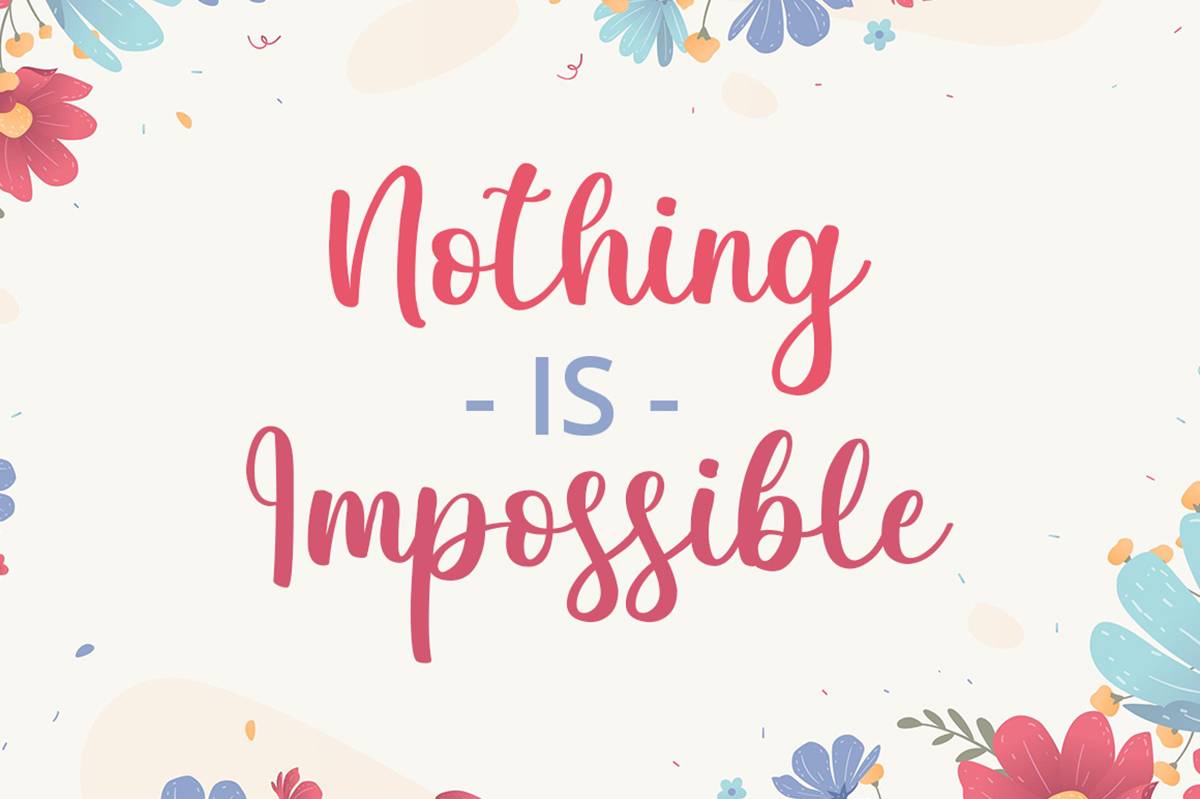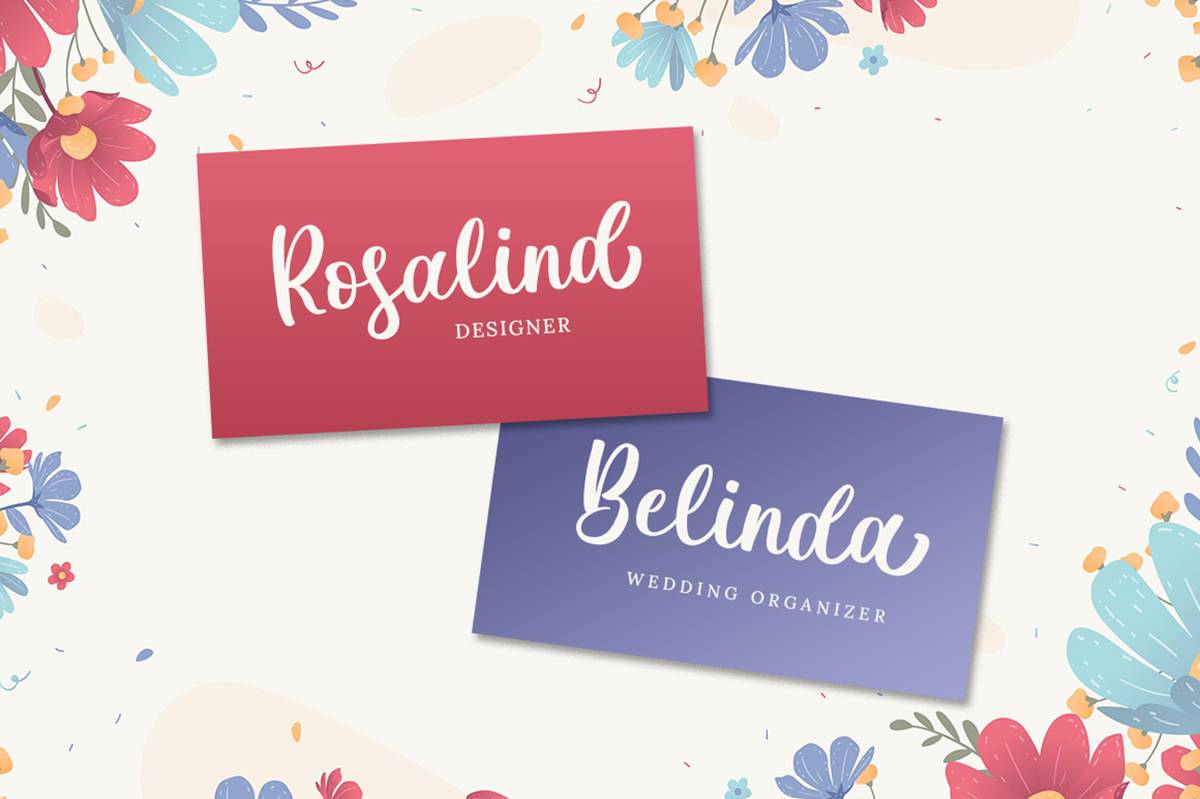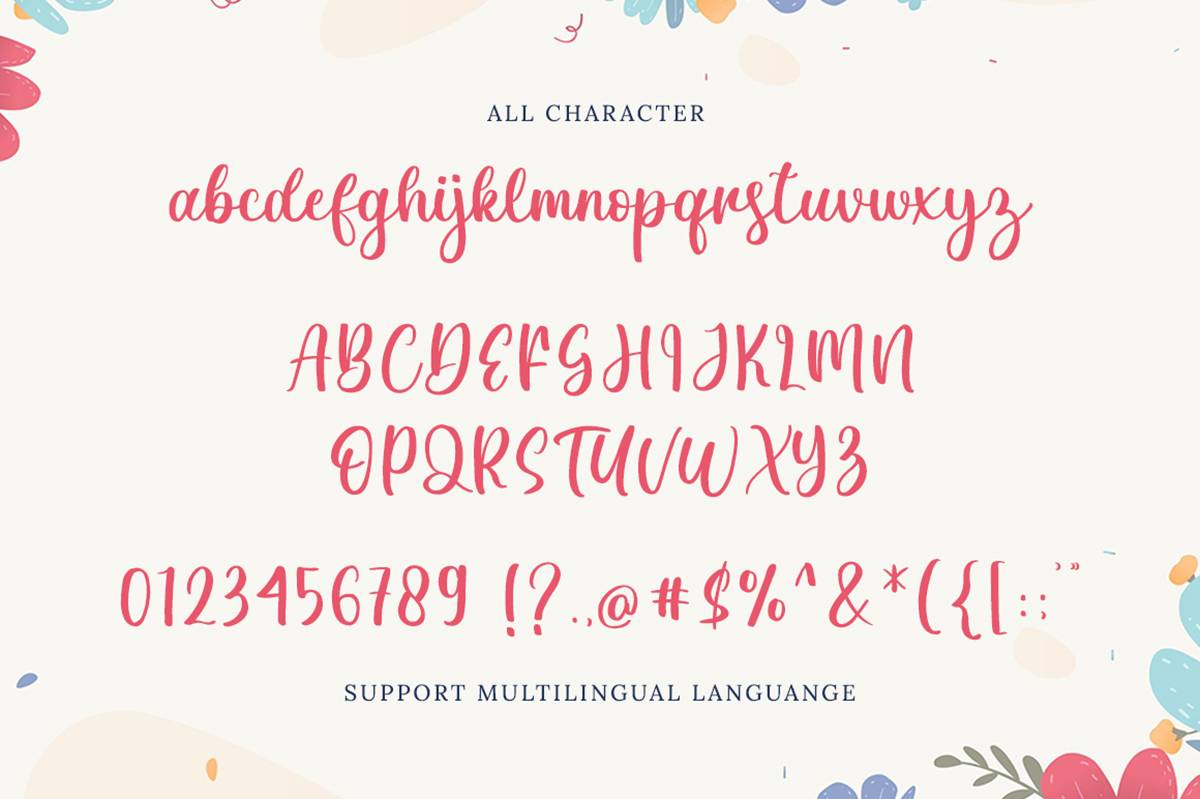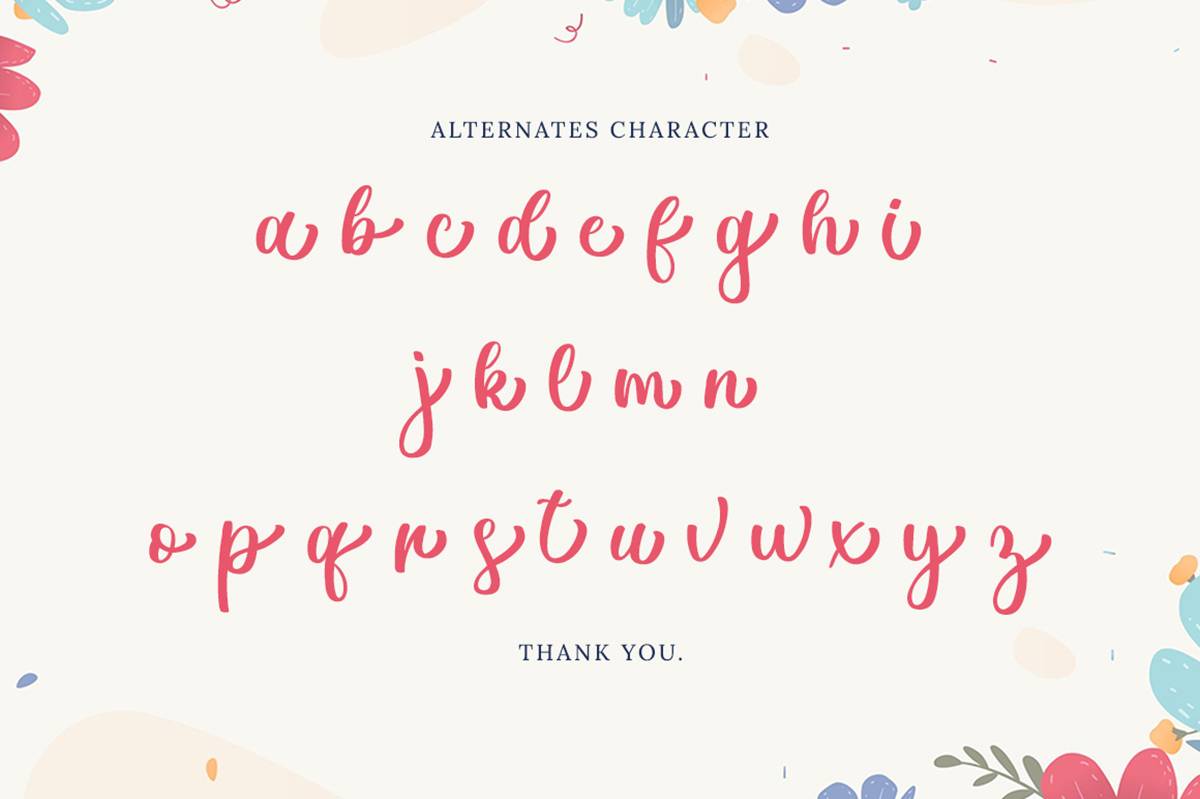
Lovely Jasmine is a charming script font with a playful and elegant personality. Its smooth, flowing strokes and moderate contrast create a friendly, handwritten feel, perfect for adding a warm, personal touch to invitations, branding, or packaging. This font works well in headlines and decorative texts where a stylish yet approachable vibe is desired.
Lovely Jasmine Font
About Lovely Jasmine Font
| Font family | Lovely Jasmine Font |